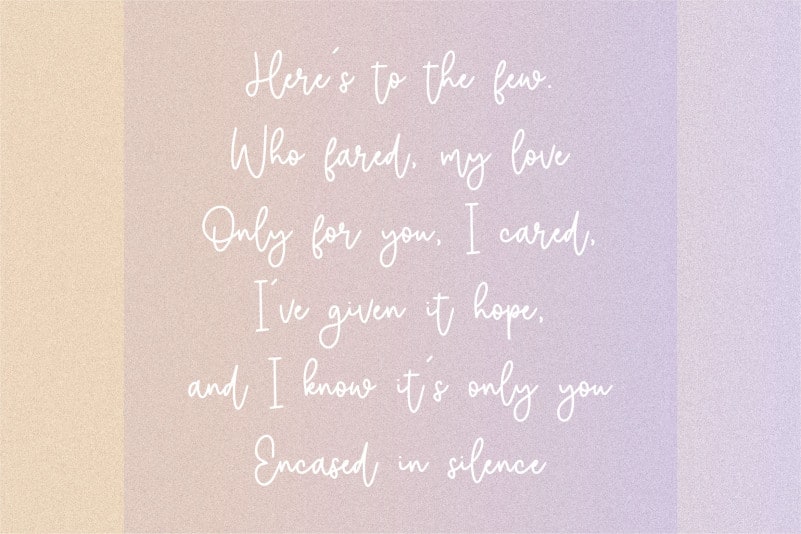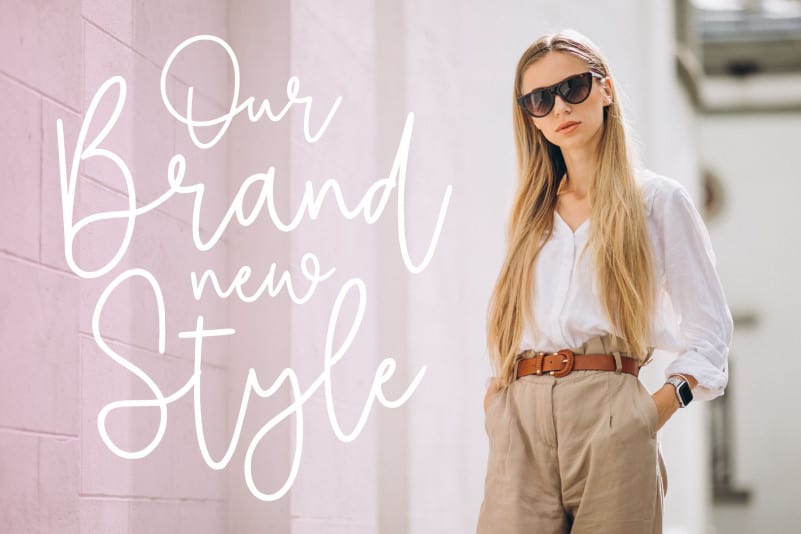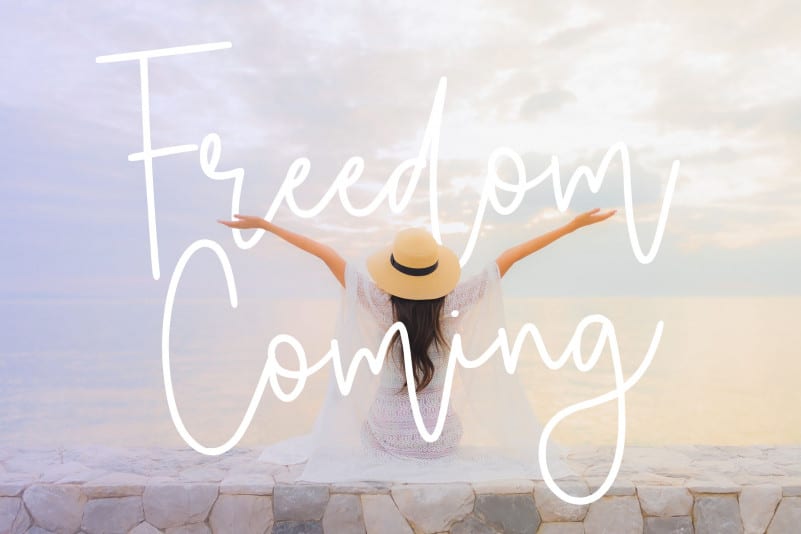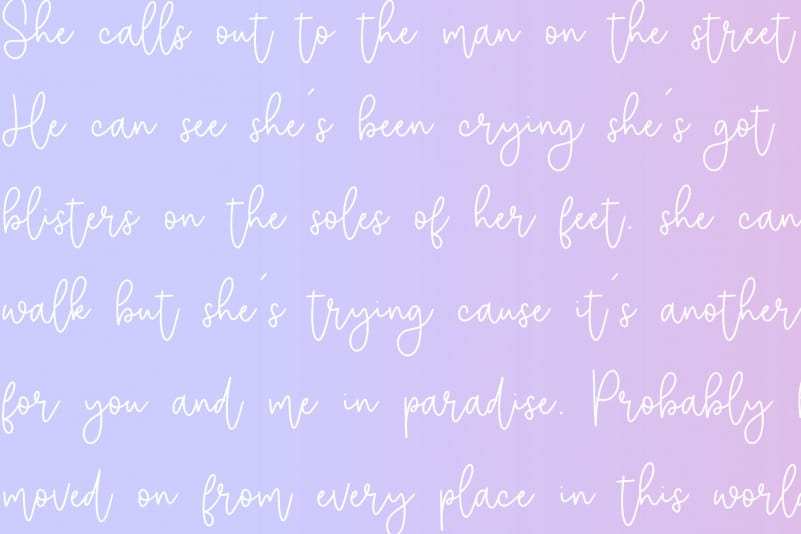
Selimut Hati Monoline Handwritten Font
Proudly Present, Selimut Hati Monoline Handwritten Font.
Selimut Hati is a Modern Monoline Handwritten Font.
Selimut Hati is perfect for product packaging, branding project, megazine, social media, wedding, or just used to express words above the background.